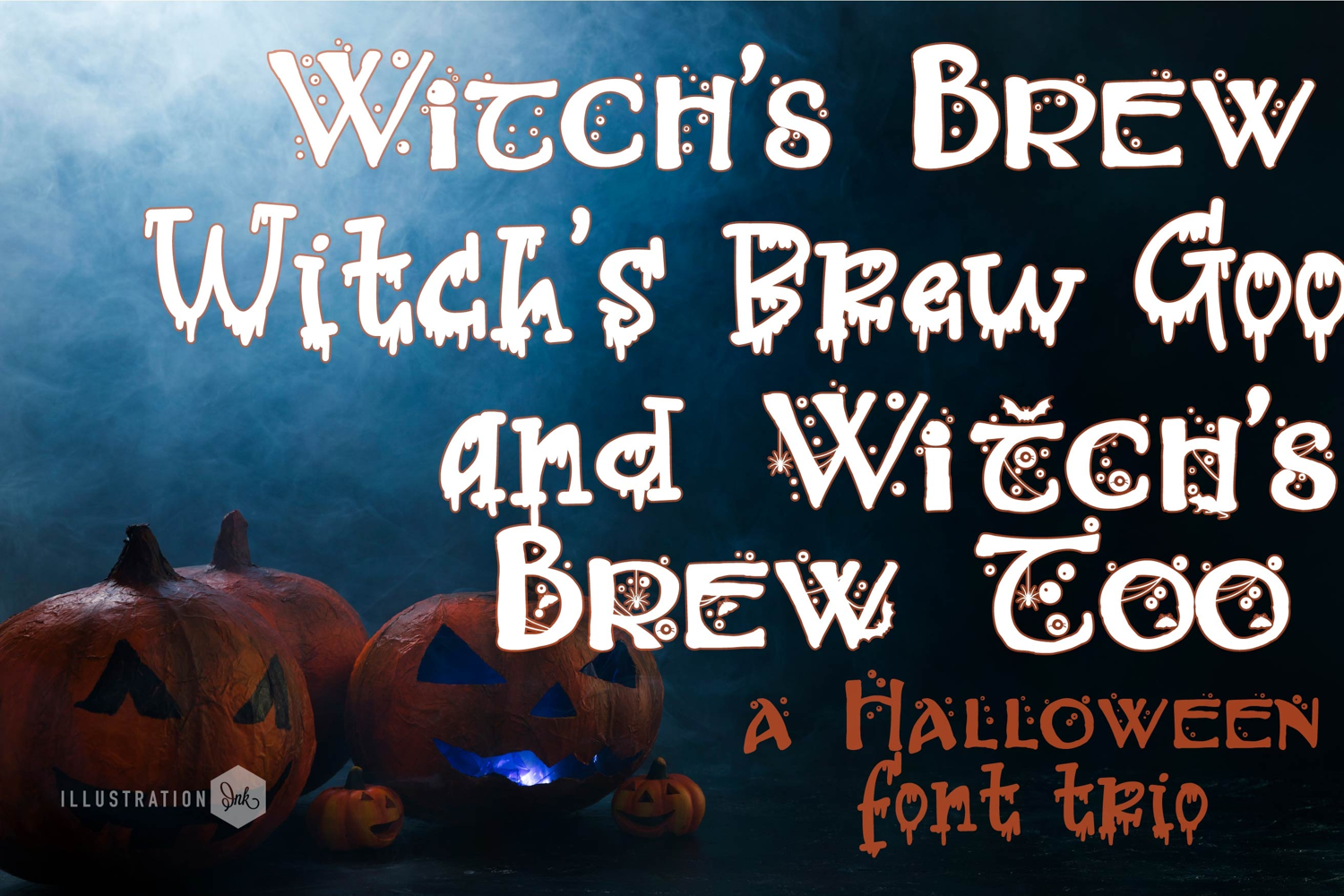
Witches Brew Font Trio
This hand-crafted font trio combines a bubbly, brewful font with a perfectly coordinated gooey print and a second more scary version of Witch's Brew. With all family members combined of the two fonts, you get 9 fonts all together!